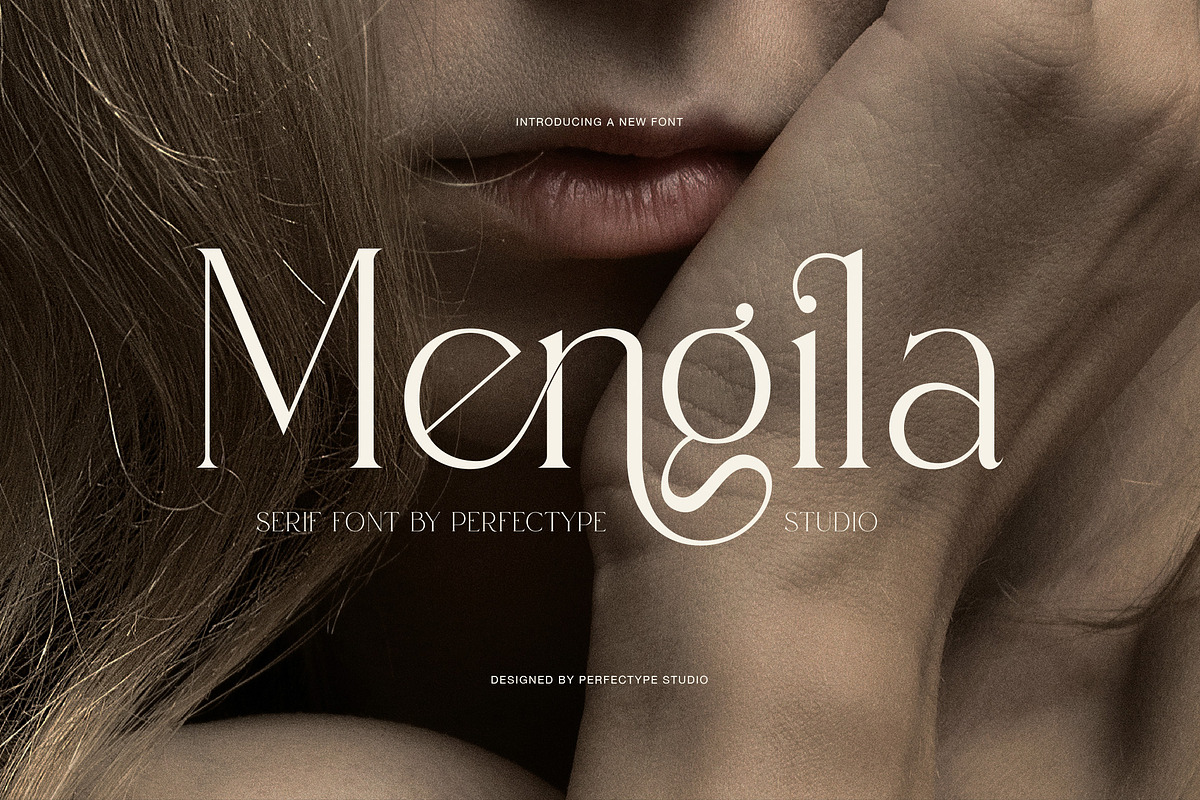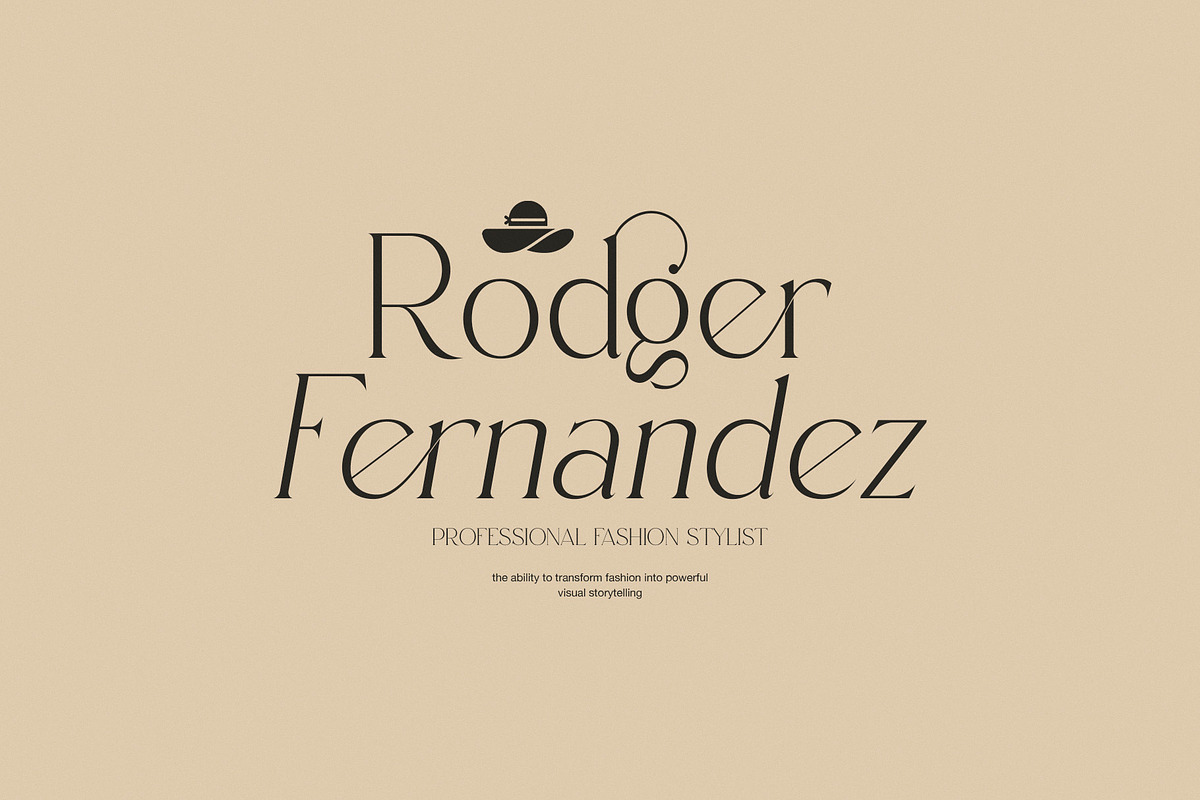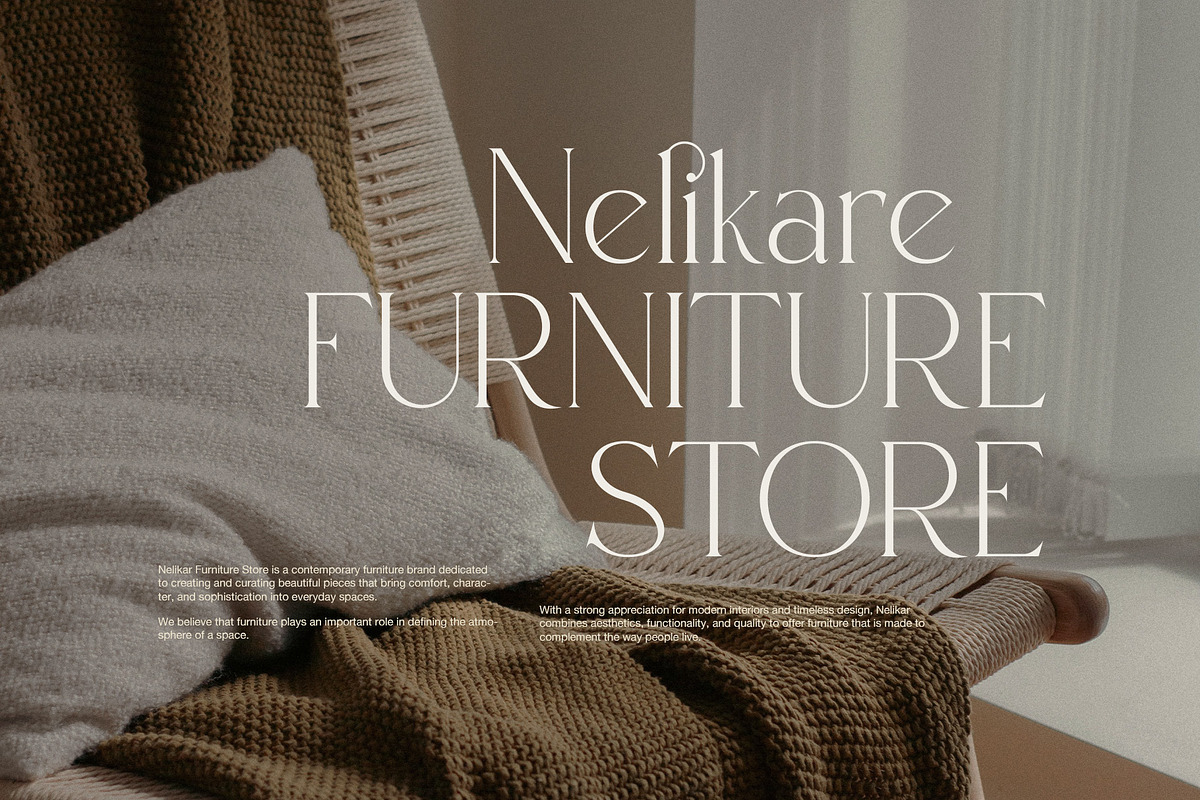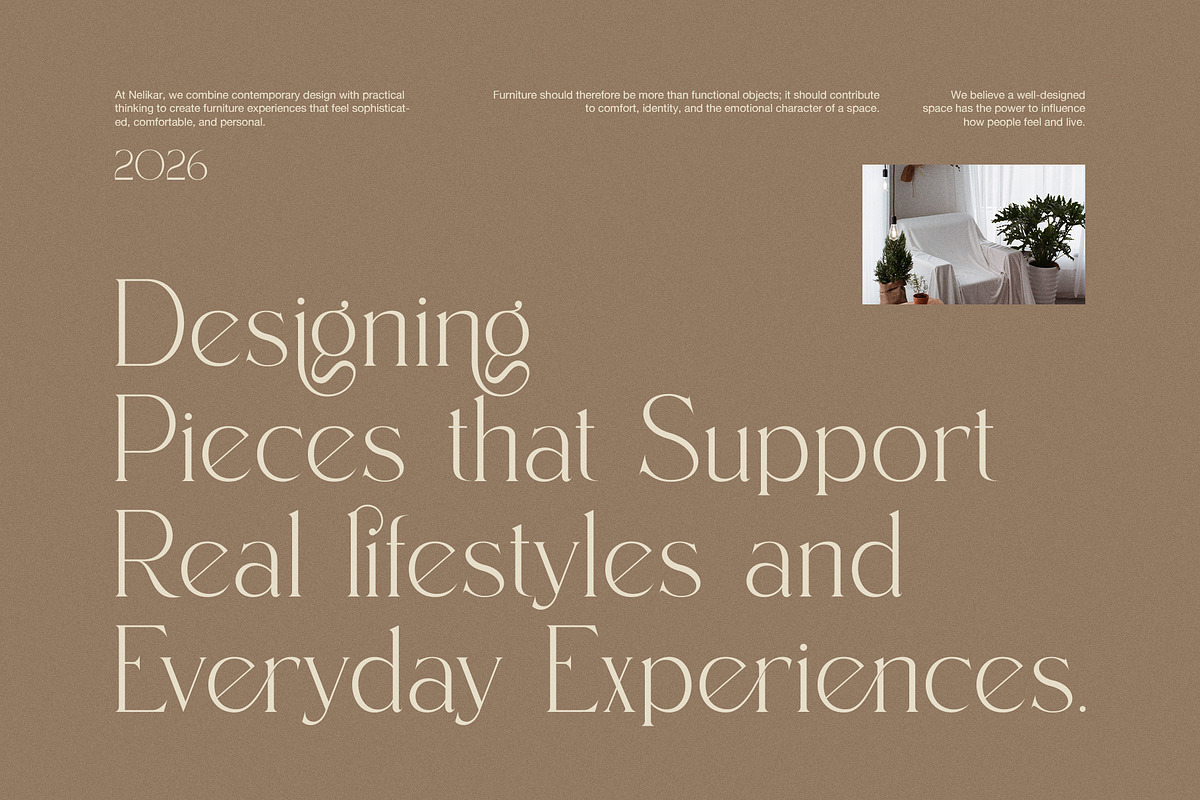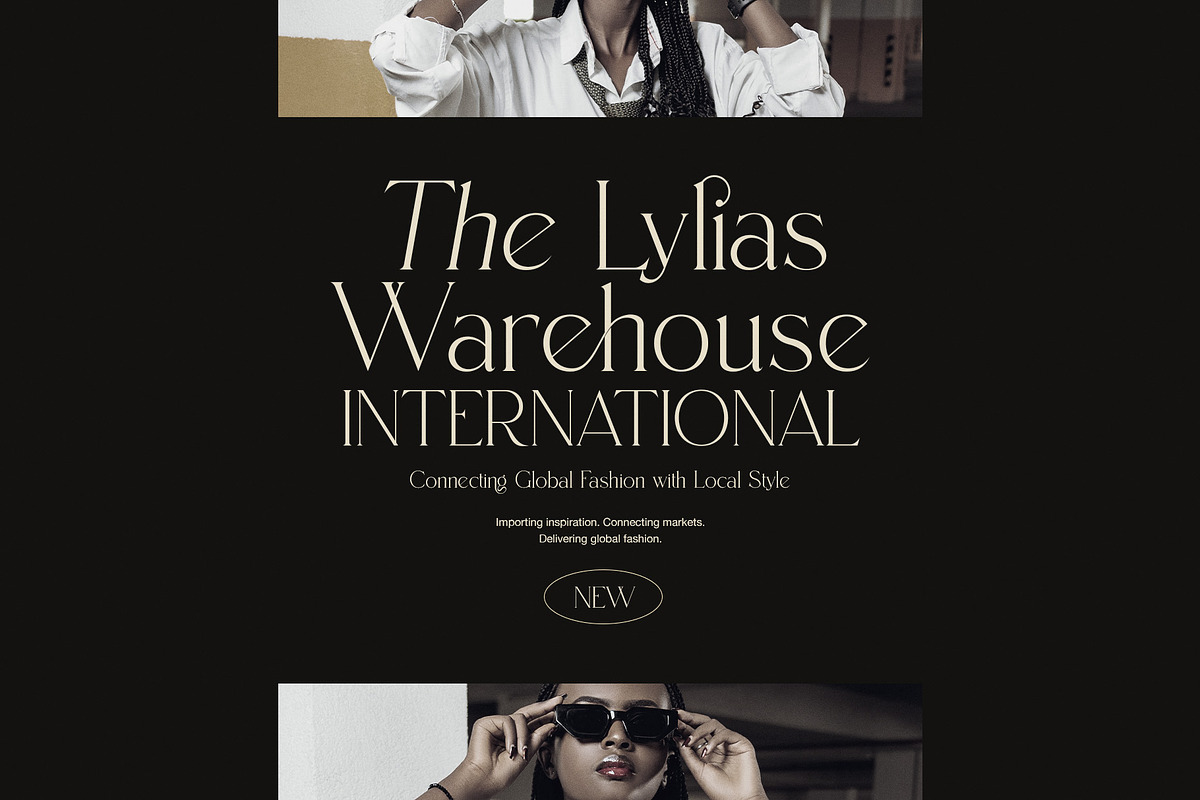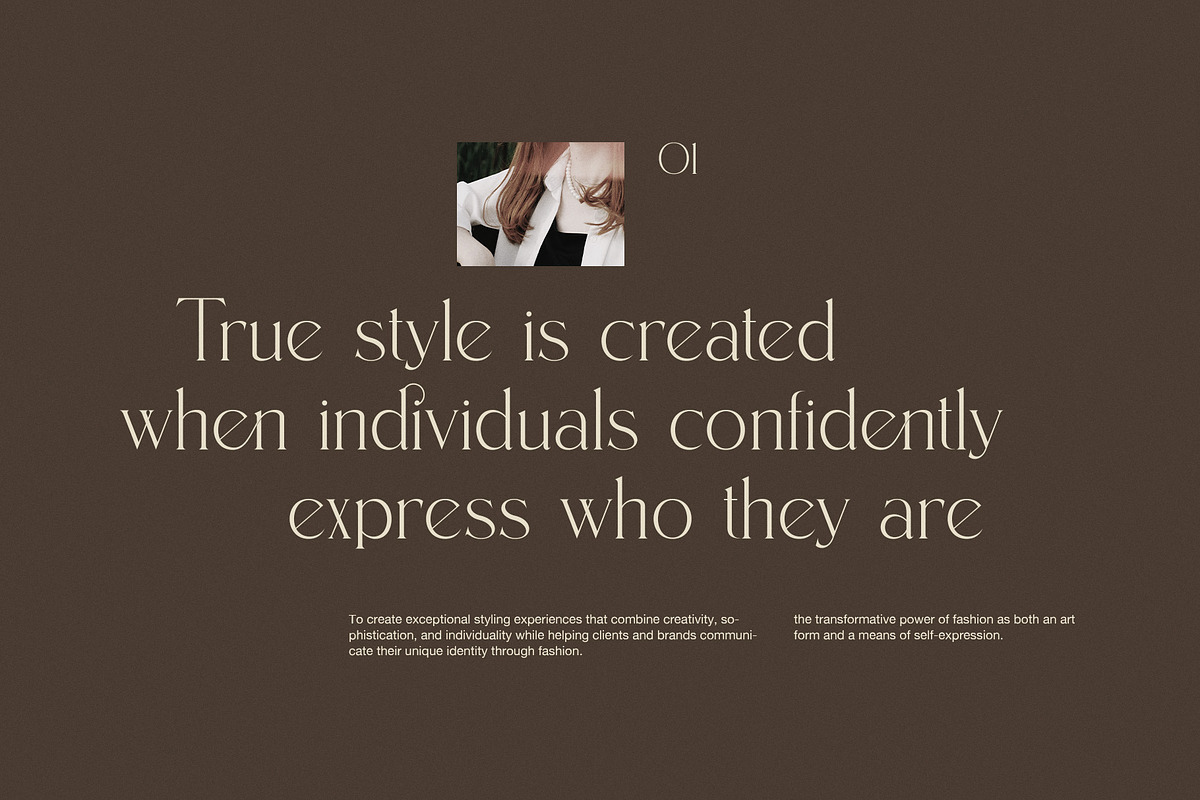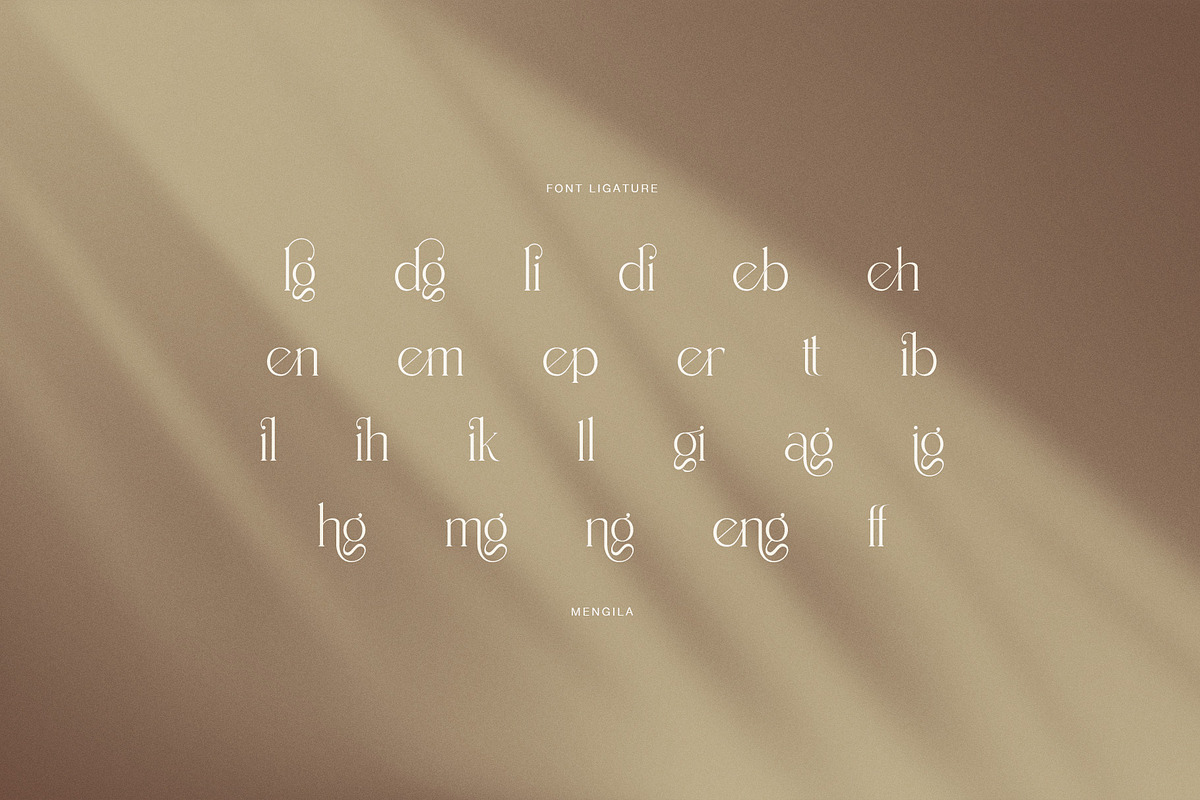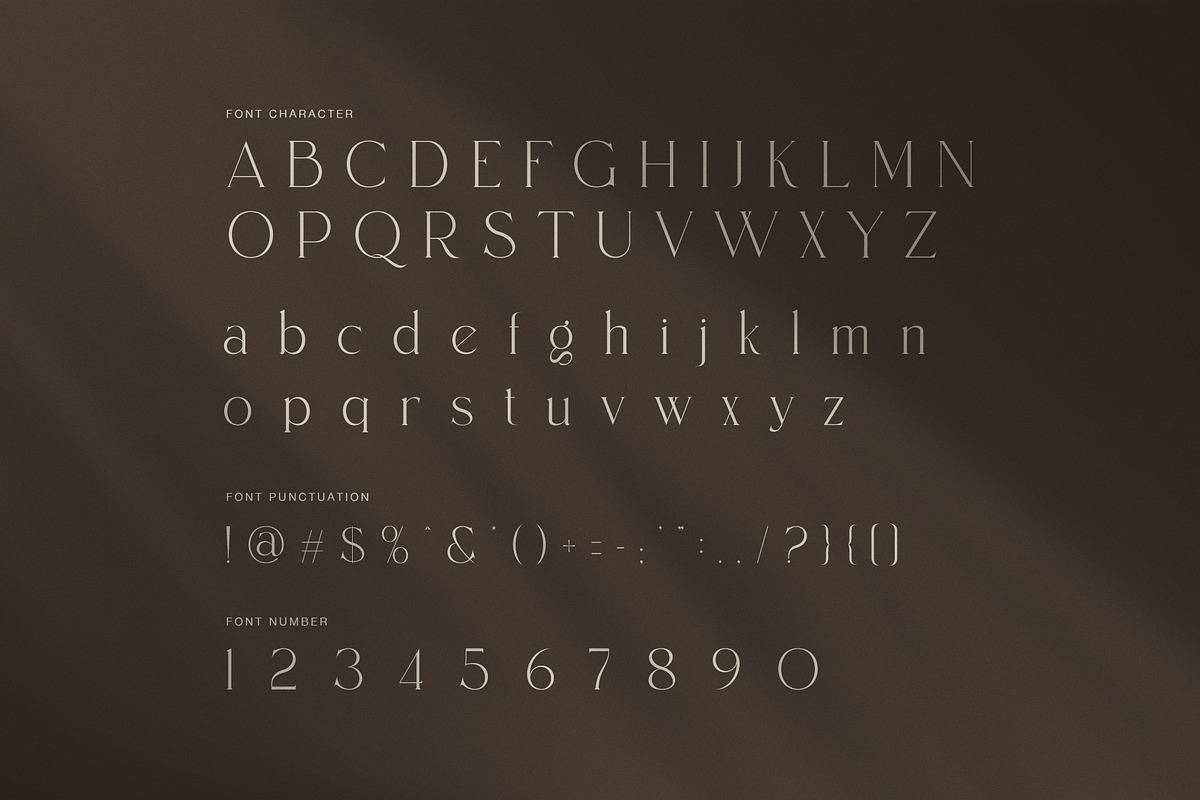
Mengila Elegant Serif
Mengila is an elegant fashion display serif font made for designers who want a refined and graceful voice. Its high-contrast strokes create a delicate rhythm, while the fine hairlines give every letter a light and sophisticated appearance. As a result, Mengila feels especially natural in fashion, beauty, lifestyle, and luxury branding.
The typeface combines classic serif structure with a modern editorial attitude. Moreover, its slender proportions allow large headlines to feel airy without losing their visual presence. The curved forms add softness, while the sharp joins bring a polished edge. Therefore, Mengila can move easily from a quiet luxury look to a more expressive fashion direction.
Its most distinctive feature is the collection of decorative ligatures and alternate combinations. These details create graceful connections between selected characters and add a custom feel to words. In addition, the flowing forms of the lowercase letters make the font suitable for elegant names, short statements, and refined brand headlines.
Use Mengila for:
Fashion logos and wordmarks
Luxury and beauty branding
Editorial magazine covers
Fashion campaign headlines
Boutique identity systems
Wedding and invitation designs
Lifestyle packaging
Photography portfolios
Beauty product labels
Website hero sections
Art and creative direction
Mengila also includes uppercase and lowercase letters, numbers, punctuation, and a useful set of ligatures. Because of its delicate construction, it performs best at display sizes where its fine details can remain clear. Meanwhile, the extended curves and distinctive letter shapes can give short words a memorable signature.
For branding, Mengila works beautifully with spacious layouts, neutral colors, editorial photography, and premium visual systems. Furthermore, it pairs well with simple sans serif fonts when you need a clean supporting text style. This balance makes the typeface useful for both print and digital projects. It also gives simple compositions a sense of movement and quiet confidence.
Whether you are creating a fashion identity, magazine title, luxury packaging, or personal brand, Mengila brings a polished and feminine character to the page. Overall, it is a versatile choice for designers seeking an elegant fashion display serif font with fine contrast, graceful curves, and expressive ligatures.